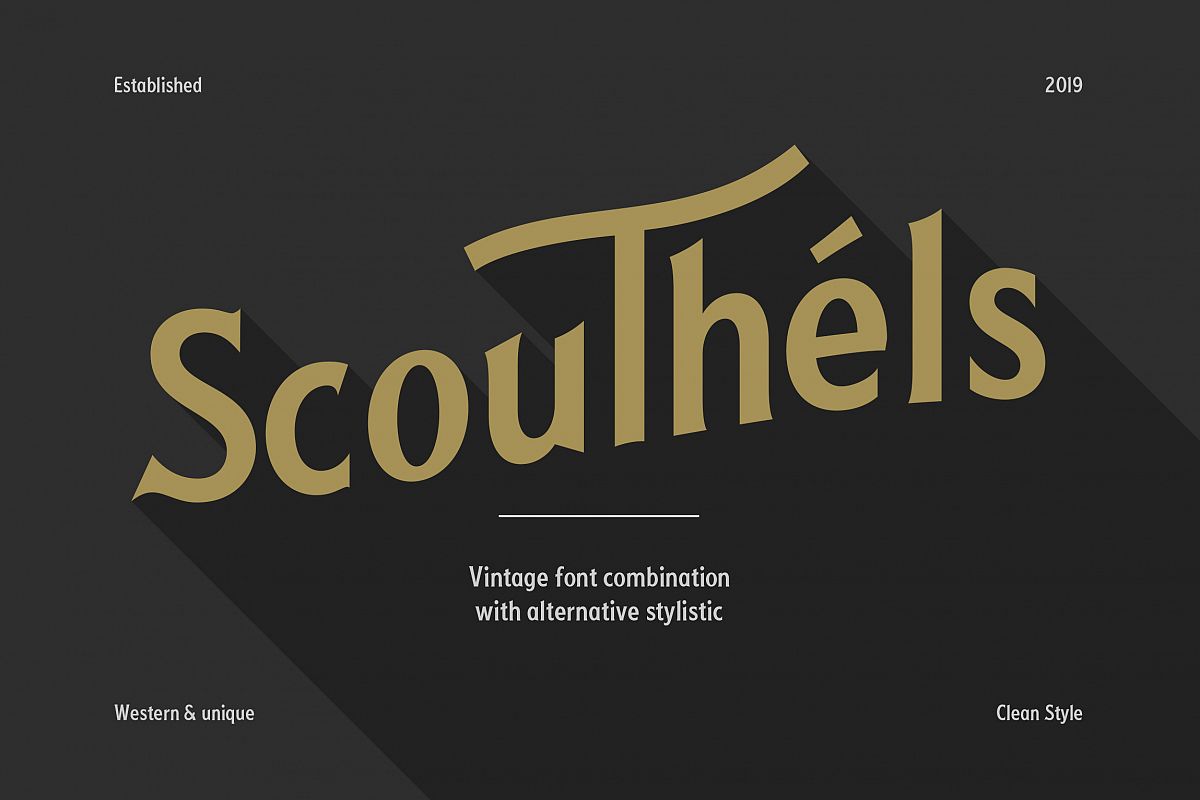
Scouthels Typeface is handmade clean modern vintage display typefaces, which is combining the style of classic typography with an modern handlettering style.Features:
- Numerals & Punctuations
- Stylistic Alternates
- Multilingual Characters